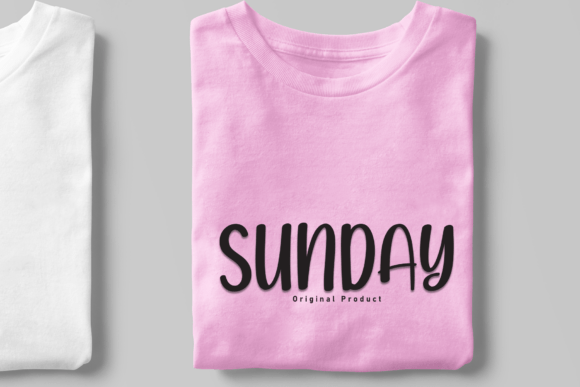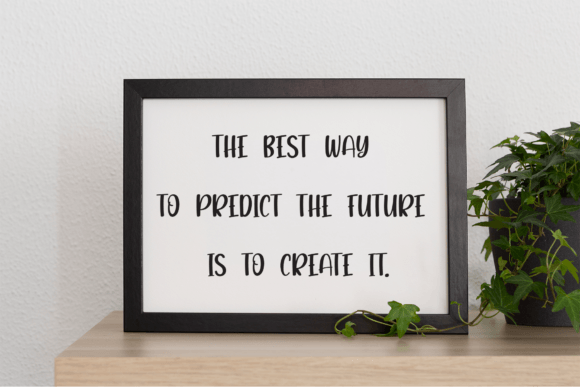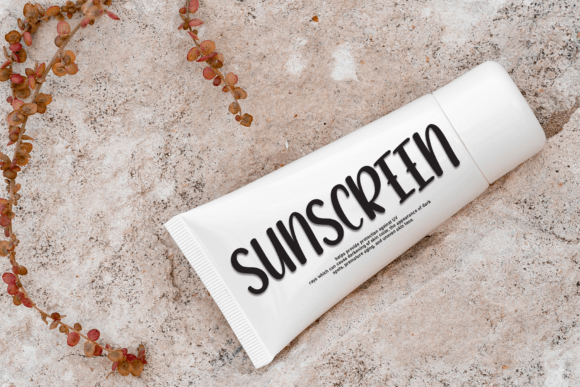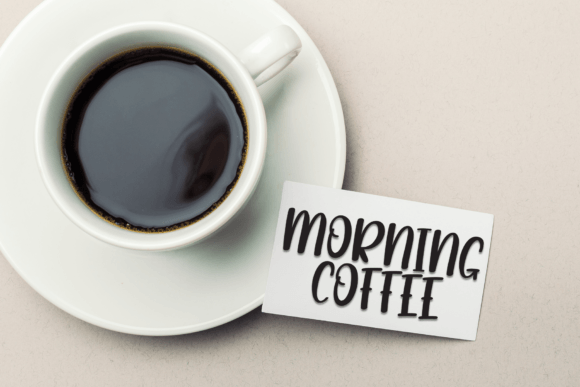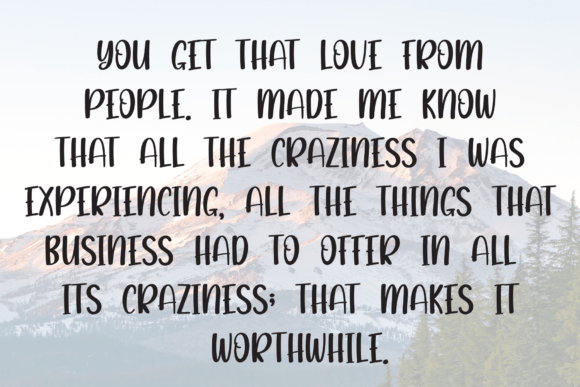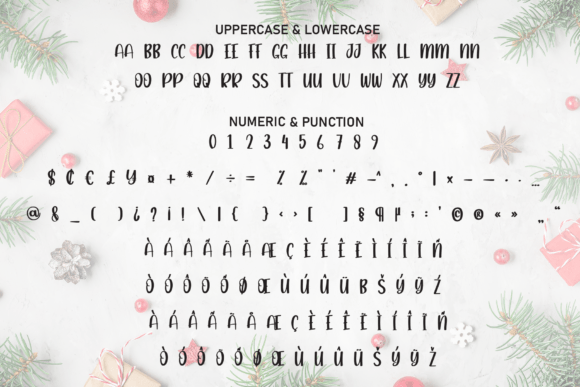
Unwrap the Magic of Christmas Desember Font
It’s that time of the year when creativity flows like hot cocoa, and design projects become an excuse to let your imagination run wild. You’re pouring over ideas for a special Christmas card or a festive wedding invitation, and suddenly, you’re struck by the perfect design concept – but it’s missing that special something. This is where the Christmas Desember Font comes in, a delightful handwritten display font that brings an instant smile to your face.
With its fun yet friendly aesthetic, this font is the perfect companion for any designer looking to add a touch of whimsy to their work. Whether you’re crafting a holiday card or a seasonal promotional material, the Christmas Desember Font is sure to breathe life into your designs and leave a lasting impression on your audience.
Key Features of Christmas December Font
- Unique Characteristics: Includes festive and seasonal characters, such as snowflakes, Christmas trees, and holly leaves, making it perfect for holiday-themed designs
- Font Style: Decorative, Script, and Sans-Serif styles available, allowing for a wide range of design possibilities
Designer Review: Christmas Desember Font
Overall, the Christmas Desember Font has its charm, but it’s not without its flaws. Let’s break it down.
- The font’s festive theme is perfect for holiday projects, especially Christmas and New Year’s decorations.
- The bold and playful script style adds a fun touch to any design.
- The font is highly customizable, with a wide range of options for size, color, and style.
- The font’s design can be a bit too kitschy for some tastes, which may limit its appeal.
- The bold style can be overwhelming in some contexts, making it difficult to read.
- The font is not optimized for body text, making it less suitable for long blocks of text.
Overall, the Christmas Desember Font is a great choice for holiday projects, but it’s not a one-size-fits-all solution. Use it sparingly and strategically to add a touch of festive flair to your designs.
For best results, use the Christmas December Font in conjunction with festive graphics, such as snowflakes, holly, or Christmas trees. You can also experiment with different font sizes and colors to create a unique look.
The Christmas December Font is perfect for creating holiday-themed designs, such as:
- Christmas card invitations
- Gift tags and wrapping paper
- Decorative social media posts
- Winter-themed posters and flyers